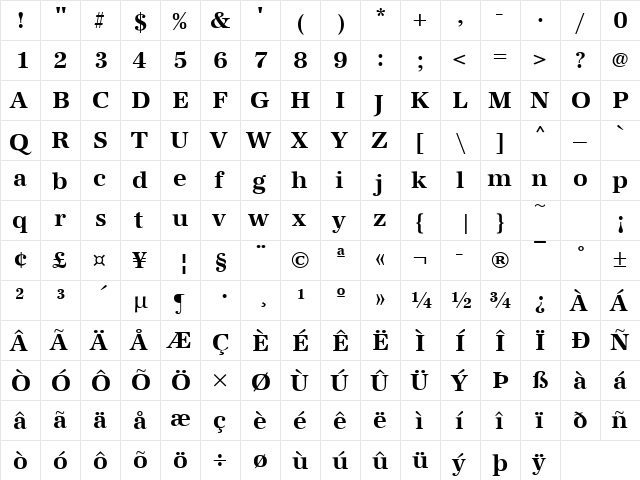
URWAntiquaT Bold
Design Context for URWAntiquaT Typeface
URWAntiquaT takes a measured approach to typography — its balanced proportions and neutral character make it a reliable workhorse for both digital and print work. Its bold stroke weight gives it real presence on the page.